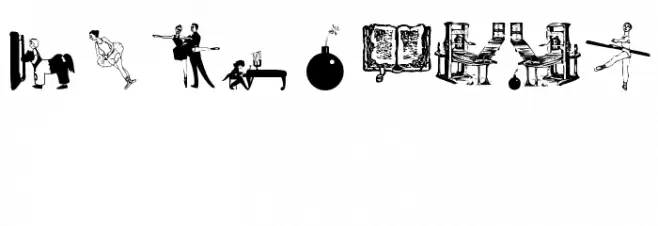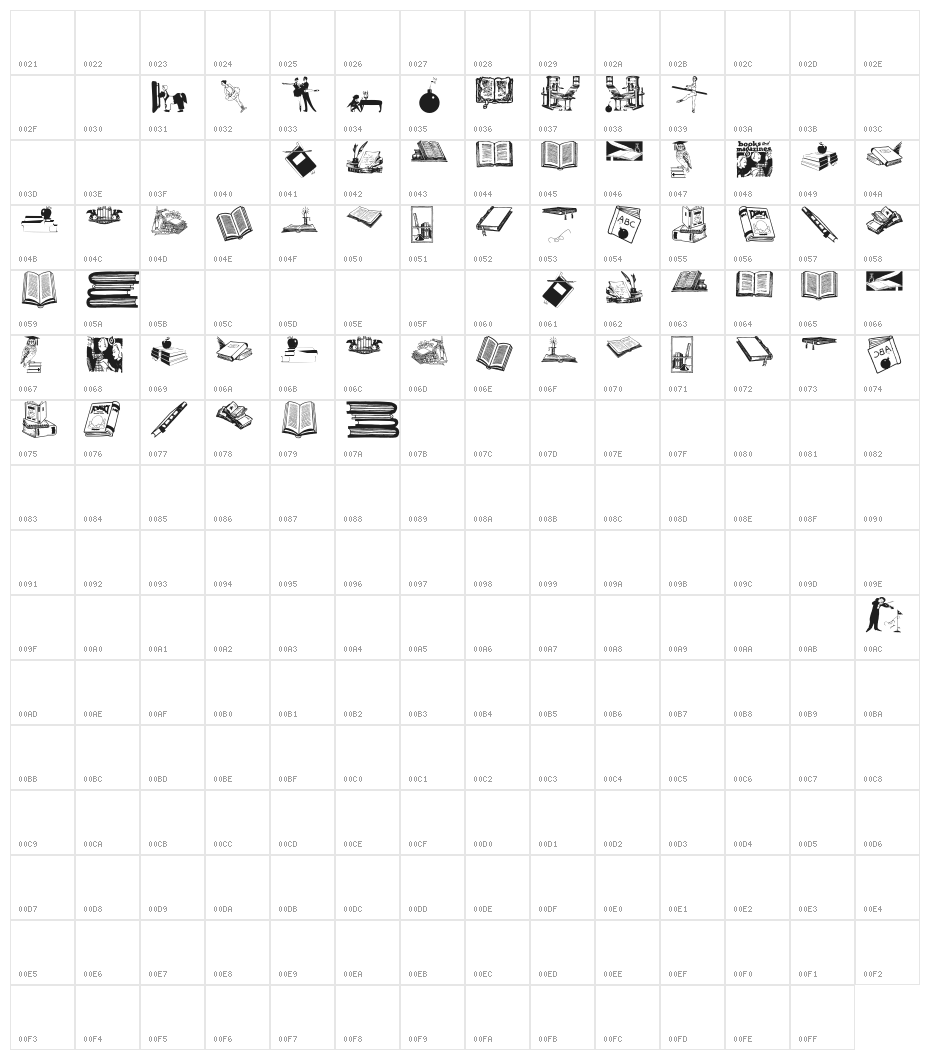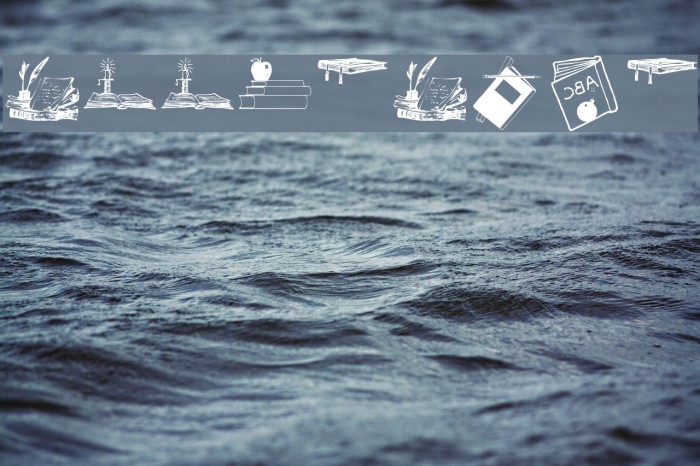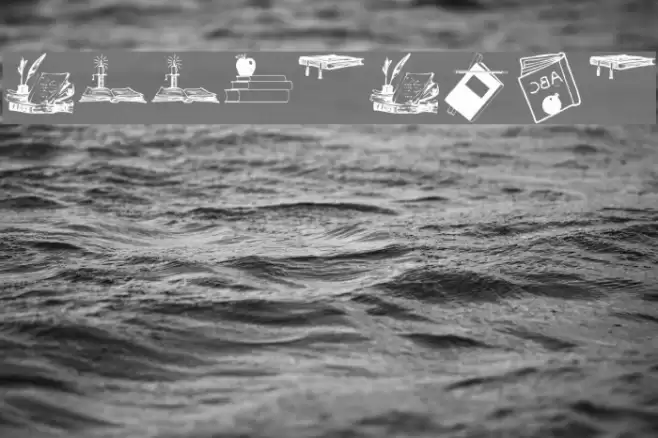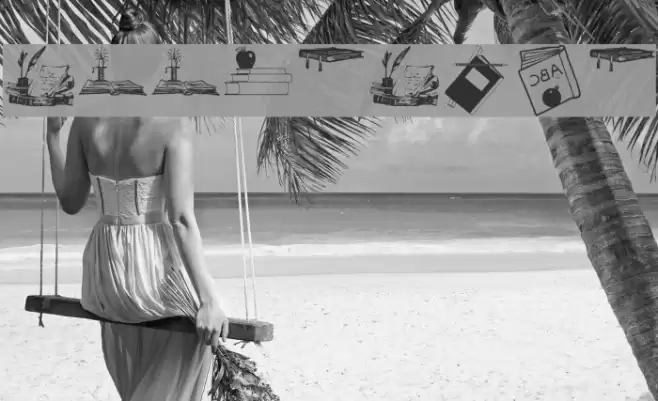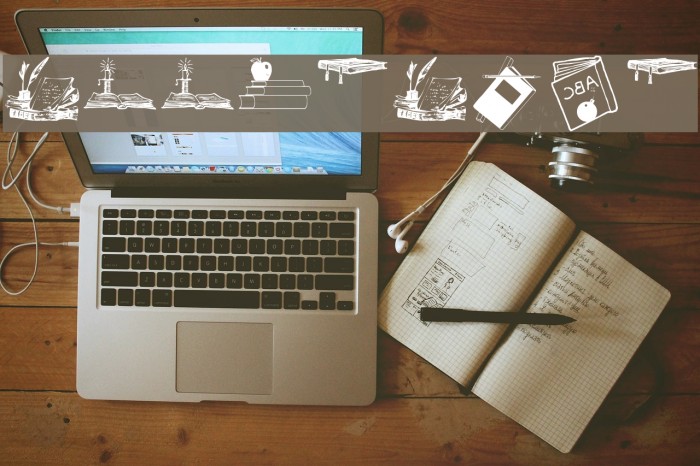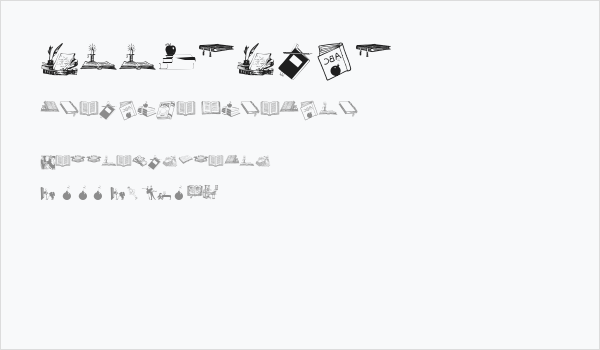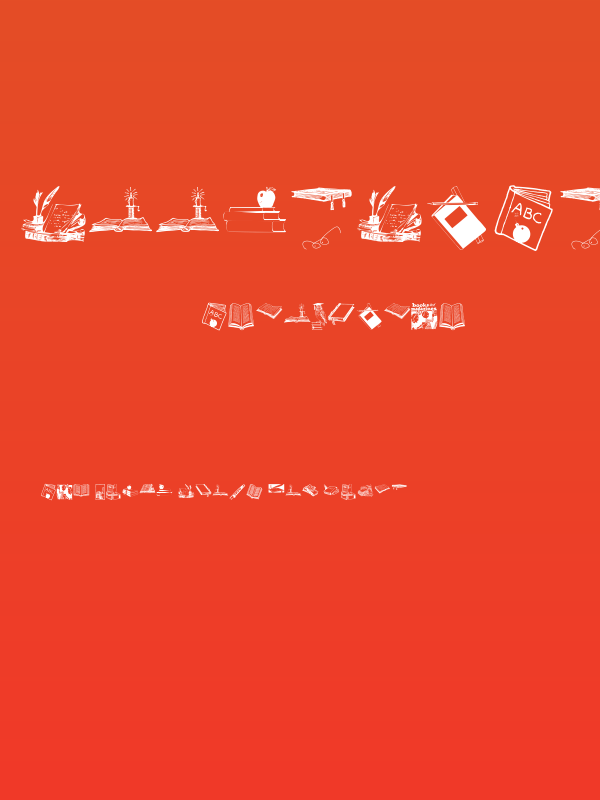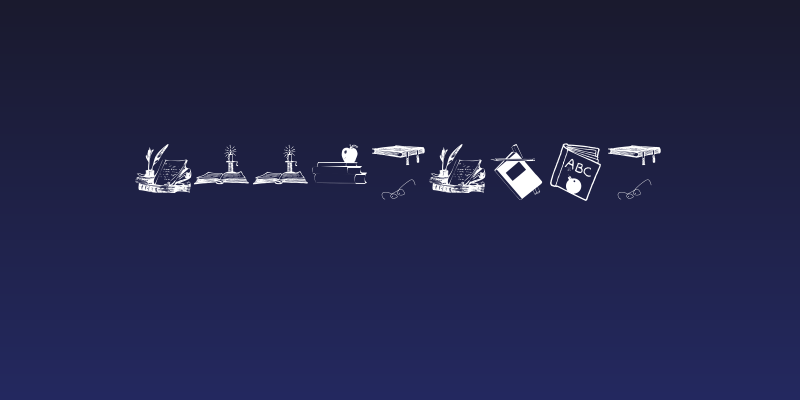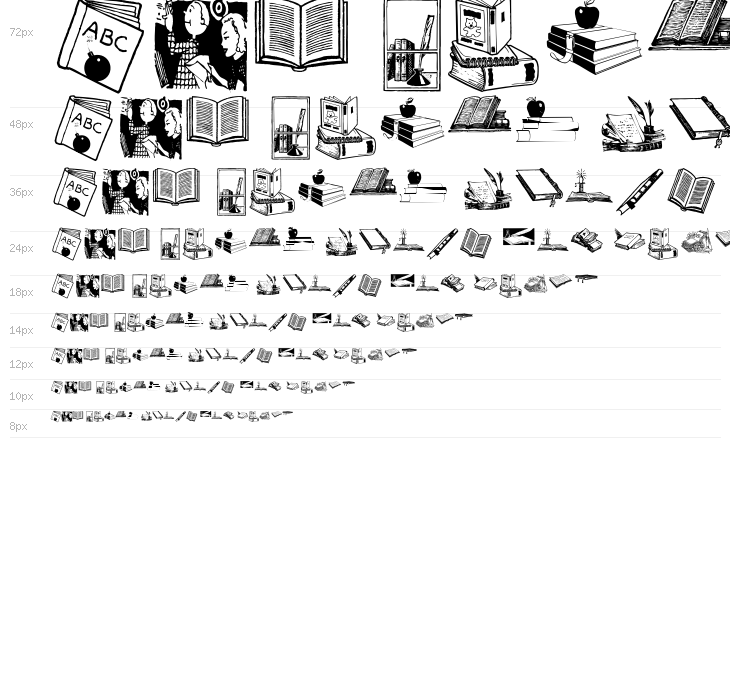
BooksBats Font
BooksBats Description
This is not a traditional font but rather a collection of decorative illustrations themed around books and reading. Each character is represented by a unique image, such as open books, stacks of books, reading glasses, and other related objects. The style is playful and illustrative, making it suitable for creative projects that require a literary or educational theme. The images are detailed and varied, providing a rich visual experience.
| Use Case | Logos, Posters, Creative Projects |
| Proposed Projects | Ideal for educational posters, library event flyers, book club invitations, or any project requiring a literary theme. |